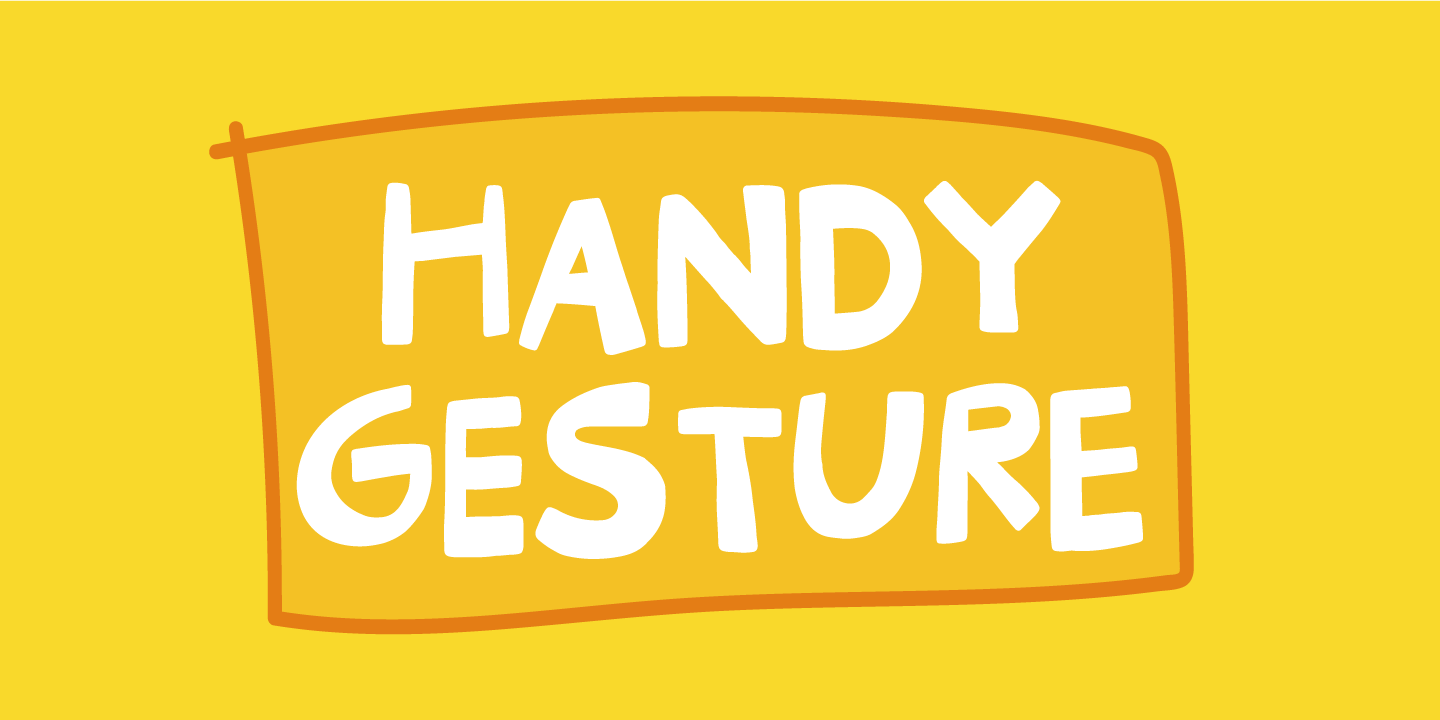
Handy Gesture Font Free Download – Expressive Handwritten Typeface with Natural Flow
Add authentic human touch to your designs with Handy Gesture Font Free Download, a lively handwritten font that captures the energy of quick, confident pen strokes. Perfect for projects needing organic movement and personality, this font works exceptionally well for branding, social media, and editorial designs.
Why Handy Gesture Font Stands Out
1. Dynamic Handwritten Features
Natural ink bleed texture
Variable stroke weights
Energetic baseline rhythm
Creative agency branding
Social media quote graphics
Product packaging with attitude
Magazine headlines
Personal blog aesthetics
Vision board designs
Handwritten-style notes
DIY workshop materials
Personal planner decoration
Coffee shop signage
Craft beer labels
Stationery collections
Podcast cover art
Pro Tips for Maximum Impact
Styling Recommendations:
Pair with geometric sans-serifs
Use with paper/texture backgrounds
Highlight with accent colors
Optimal Implementation:
24-36pt for headlines
14-18pt for short paragraphs
Works best with generous spacing